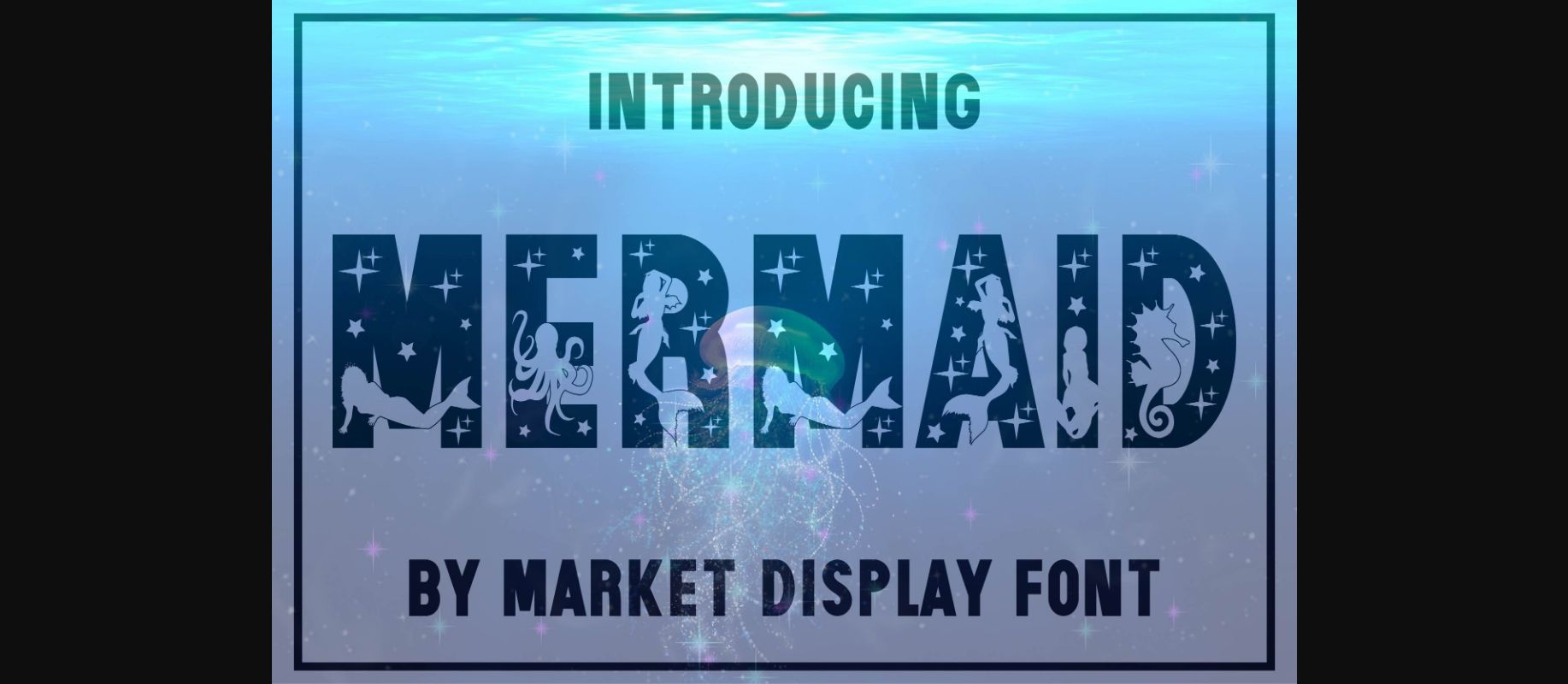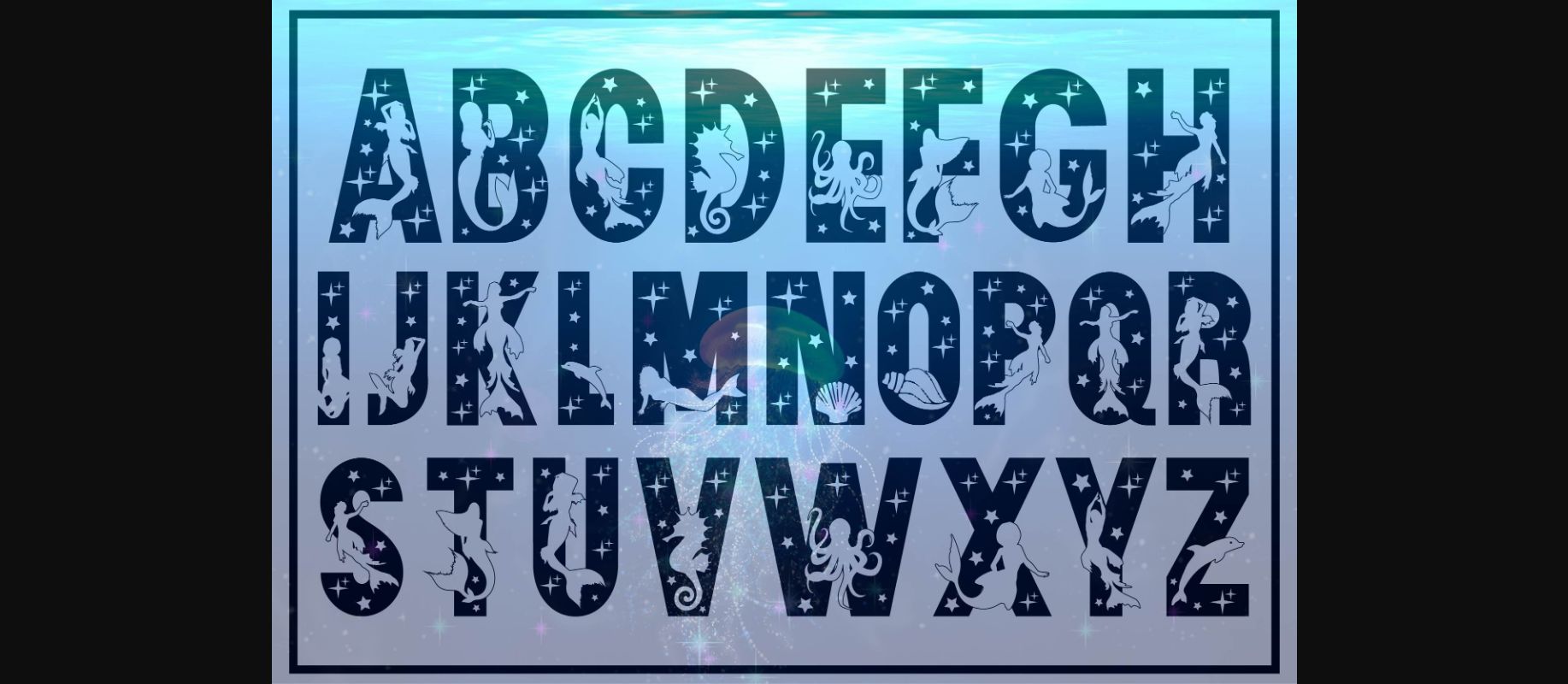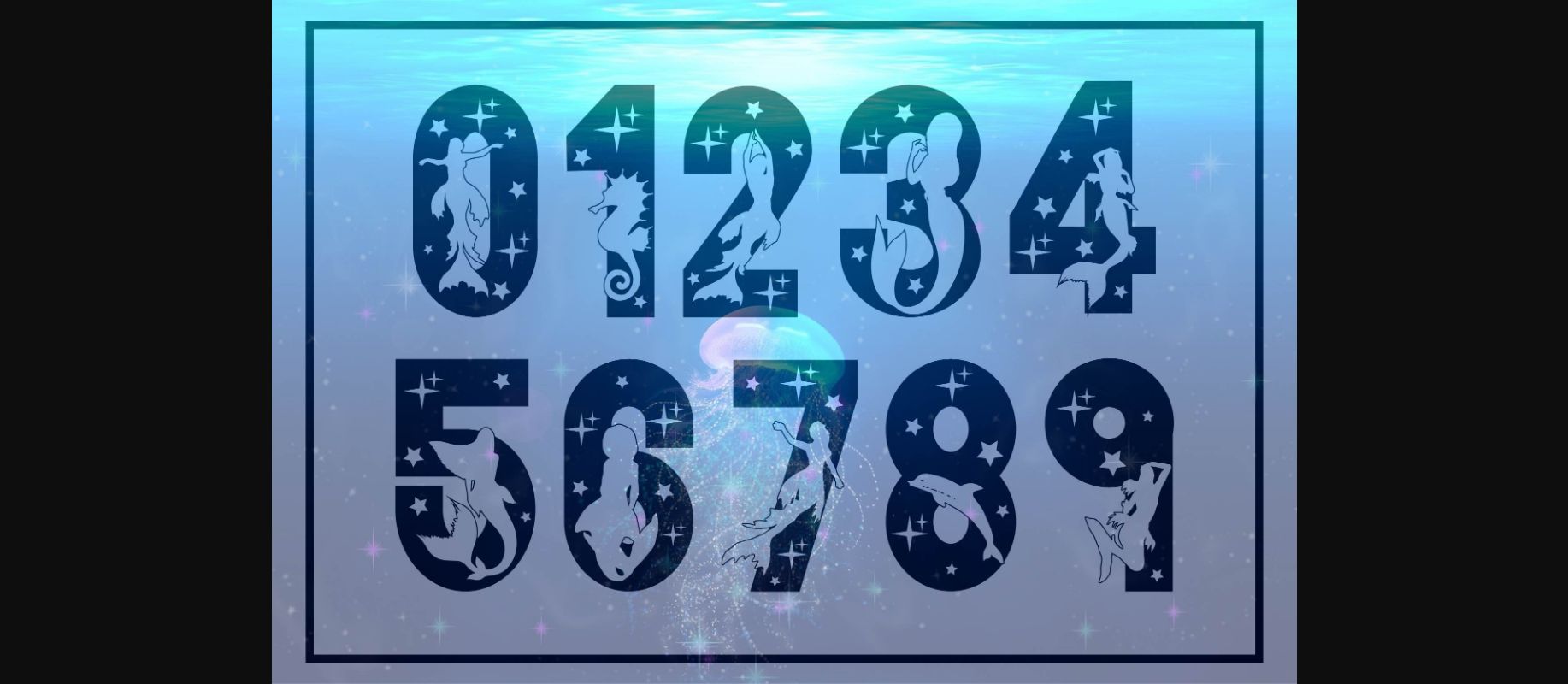
About Mermaid Font
Mermaid is a bold and colorful decorative font. Its friendly feel makes this font incredibly versatile, fitting a wide range of contexts. Add it to your creative ideas, and notice how it makes them stand out!